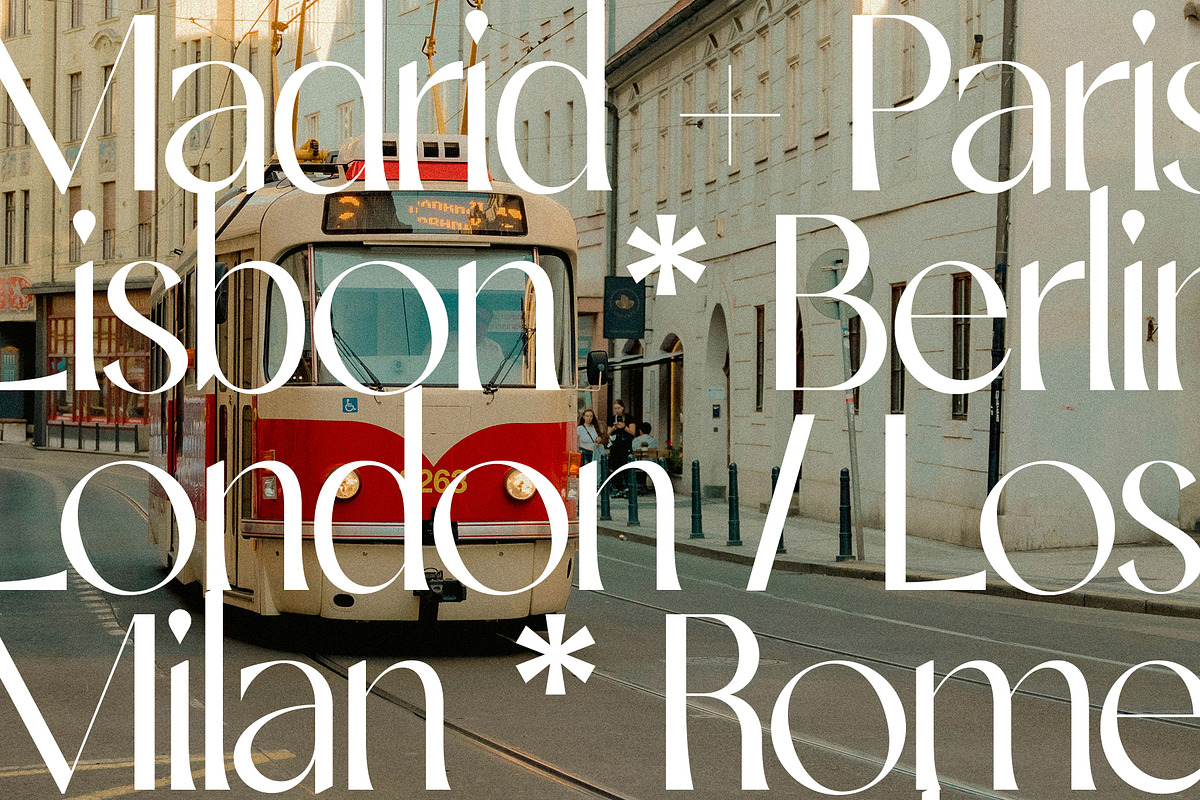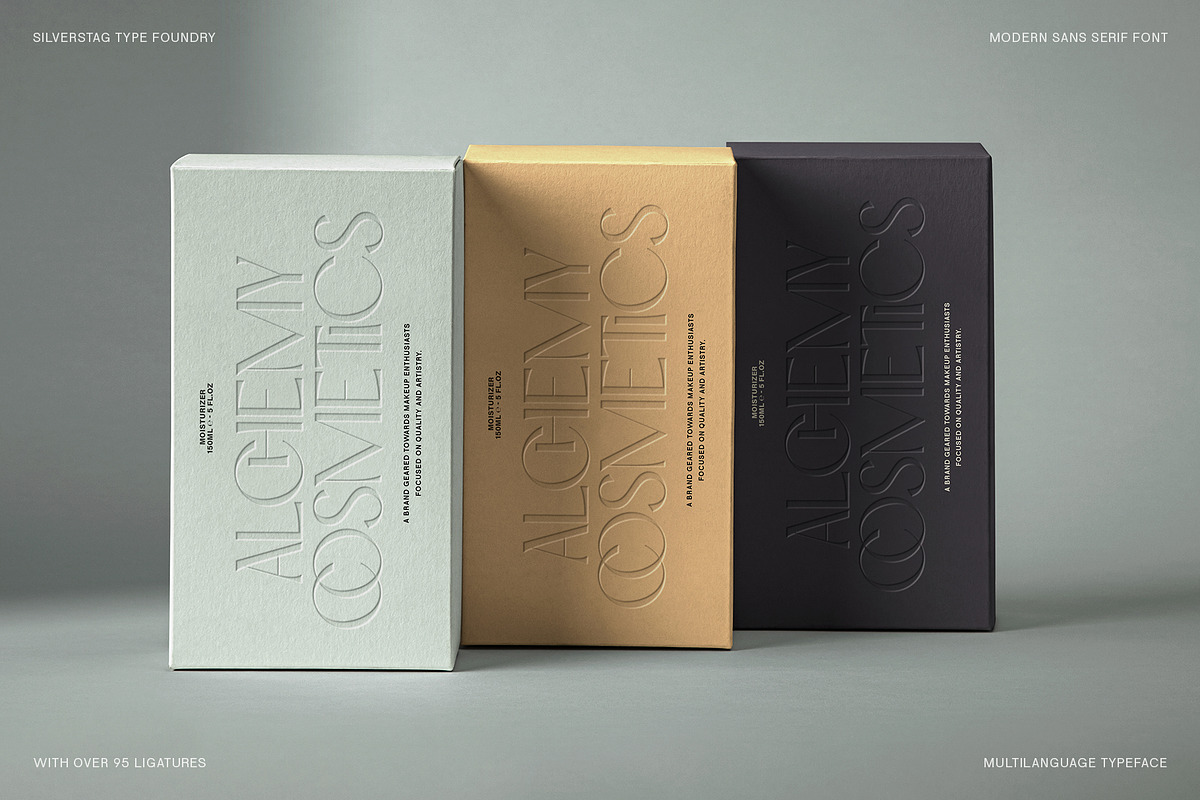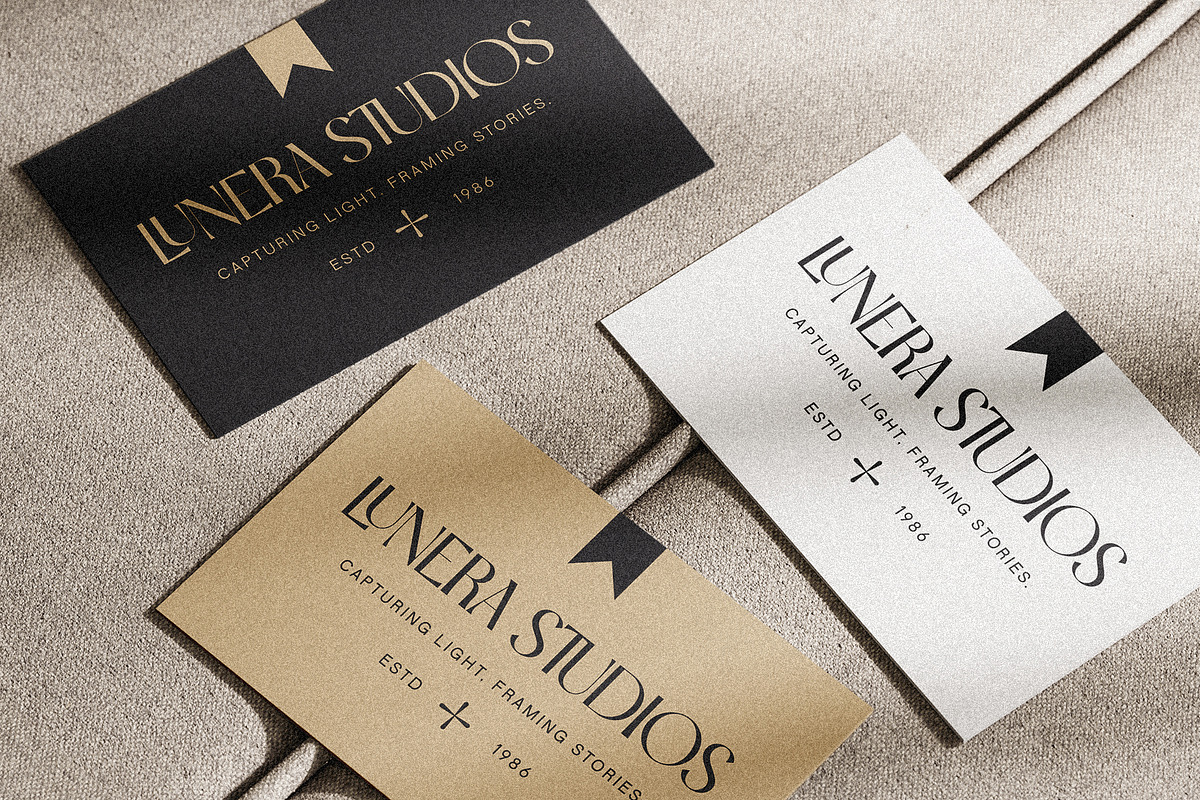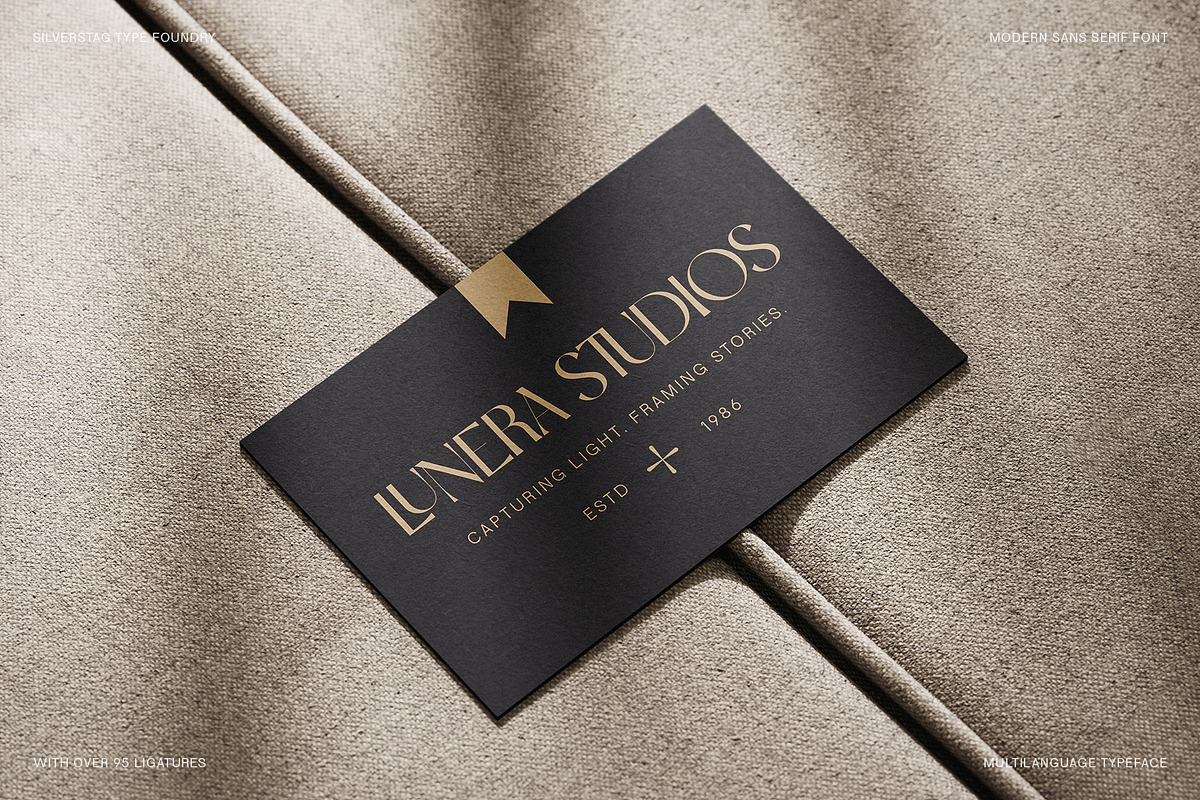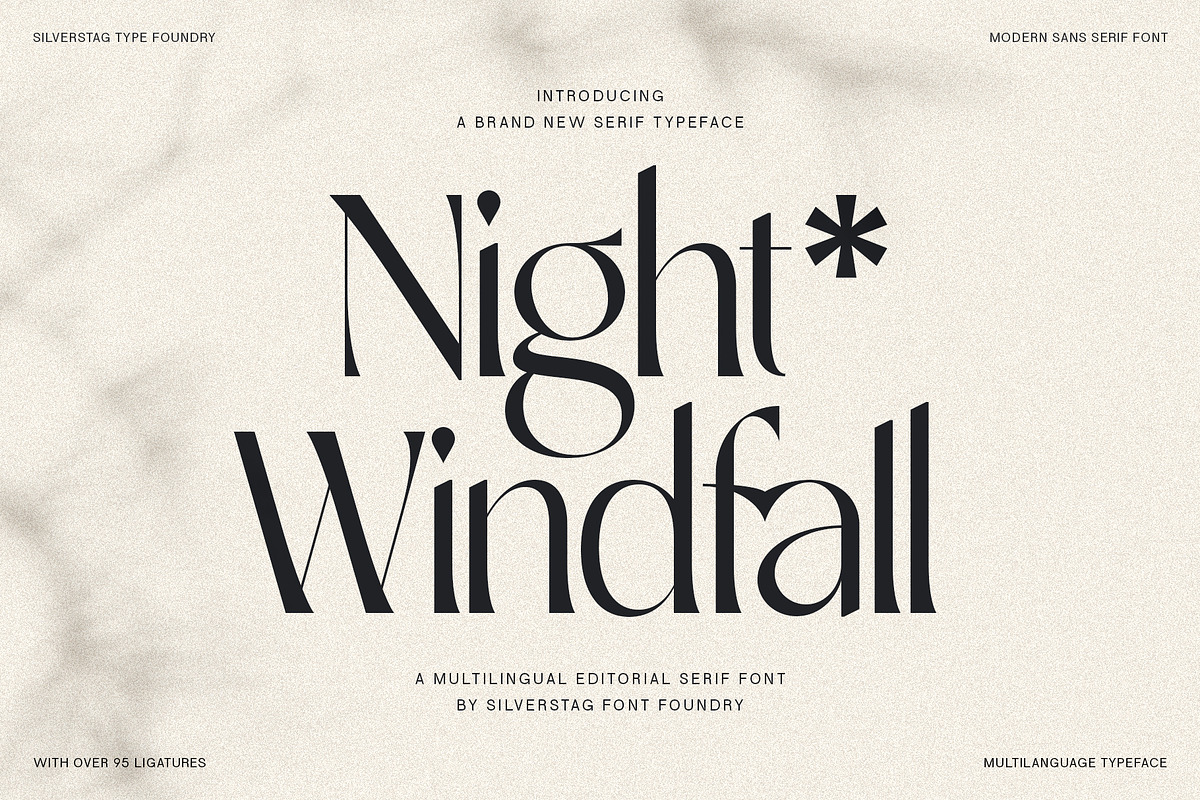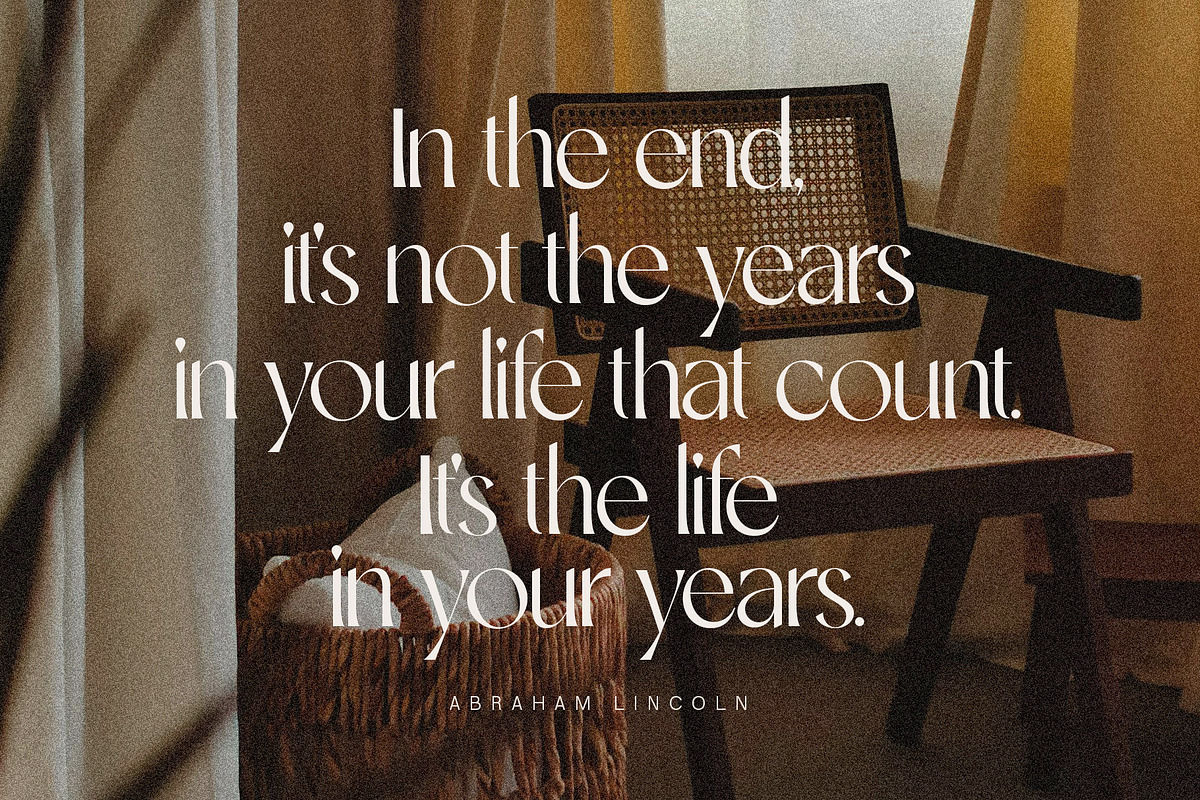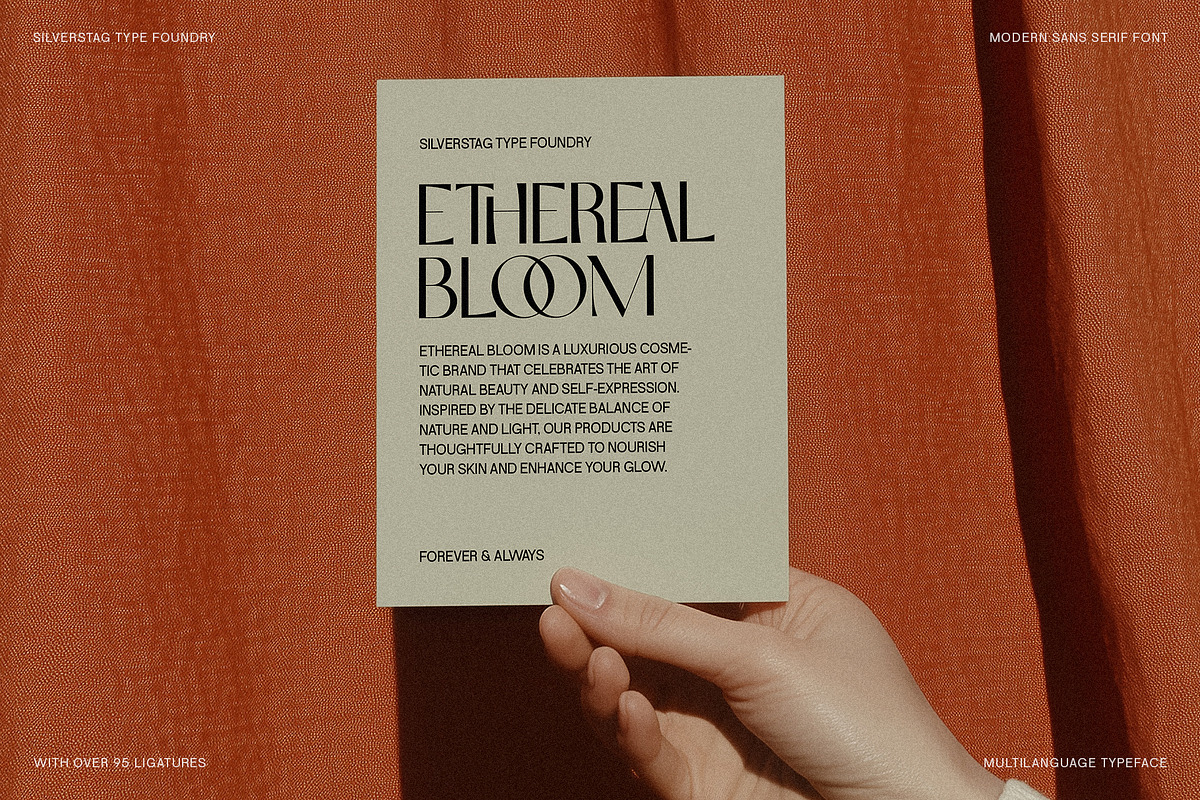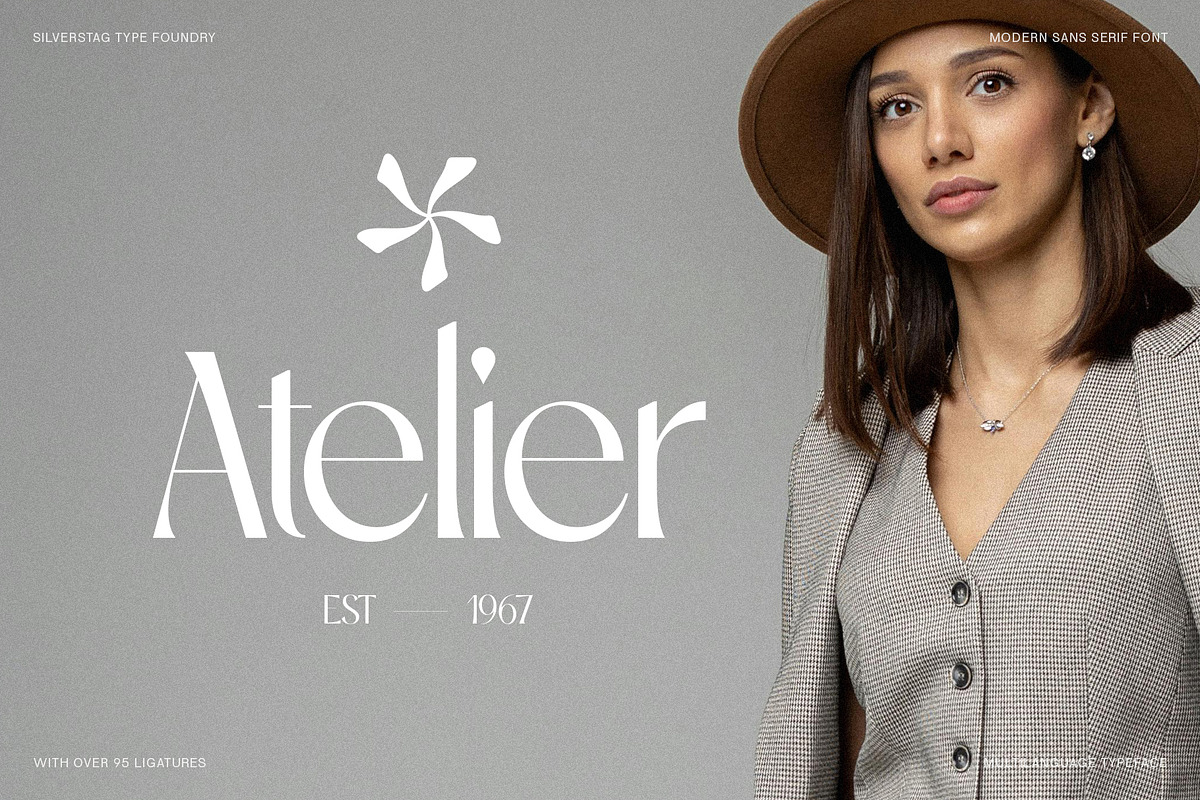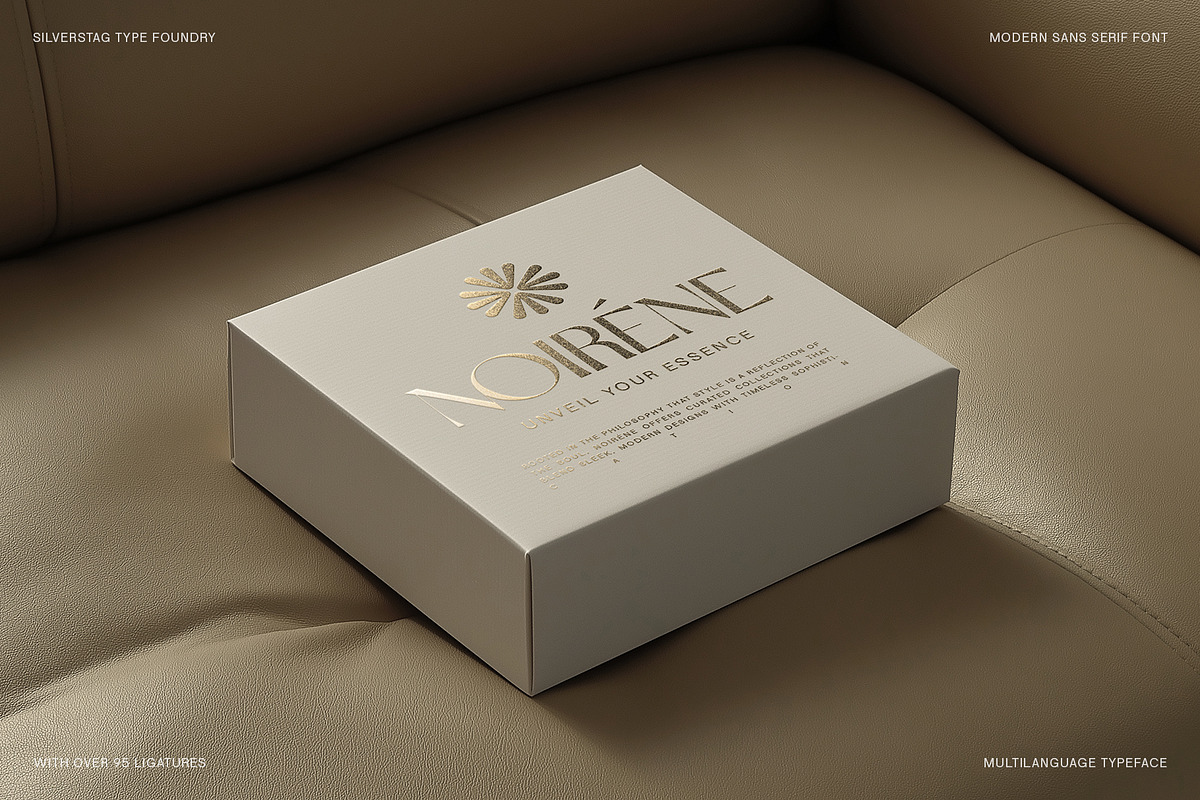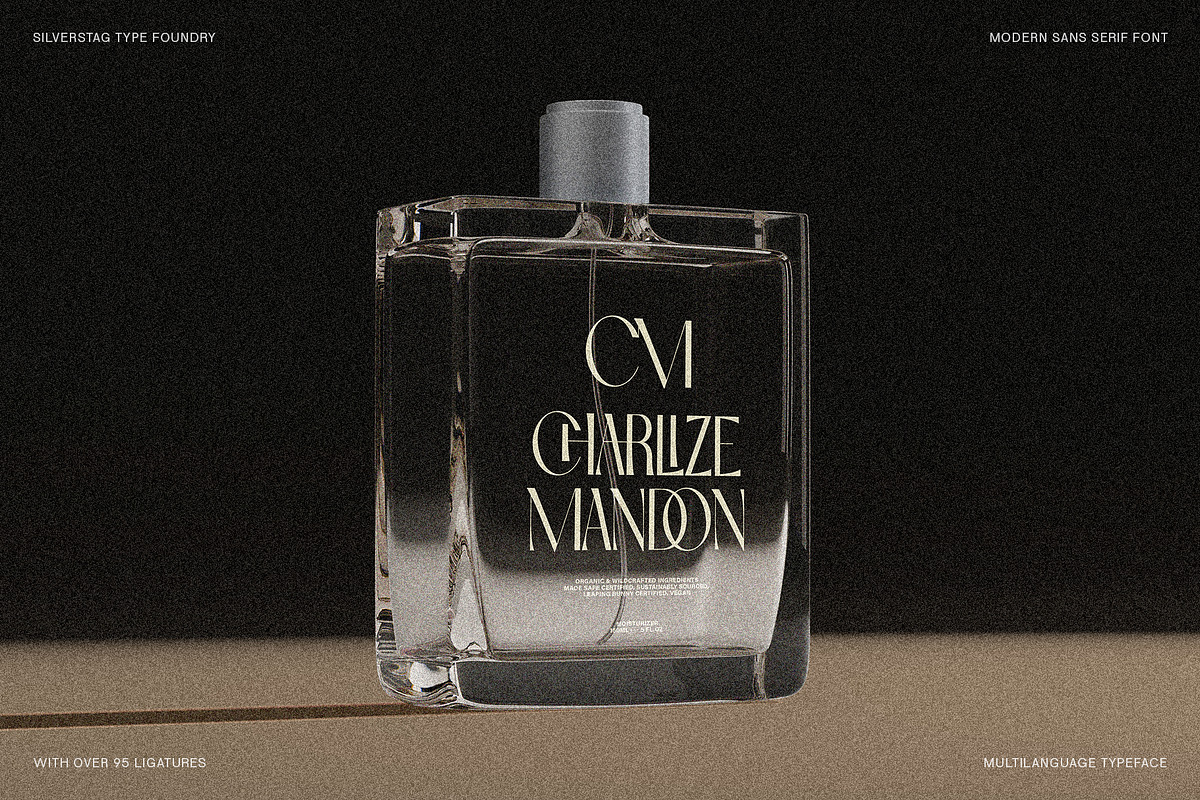
SLTF Night Windfall - Ligature Sans
Introducing SLTF Night Windfall, a stunningly chic sans serif font designed to bring a touch of sophistication to your creative projects. Crafted with meticulous attention to detail, Night Windfall offers over 95 exquisite ligatures and multilingual support for over 90 languages, making it the perfect choice for designers seeking versatility and elegance in one typeface.
- Elegant Ligatures: Over 95 stylish ligatures to create seamless, custom typography with a luxurious flair.
- Multilingual Support: Designed to accommodate over 90 languages, including Latin-based alphabets, ensuring global reach for your designs.
- Versatile Applications: Perfect for editorial layouts, branding projects, high-end packaging, wedding invitations, and more.
- Modern Sans Serif Design: Combines clean lines and contemporary aesthetics with a subtle vintage charm, suitable for both minimalist and ornate designs.
Why Choose SLTF Night Windfall?
- Unmatched Versatility: Whether you’re designing for fashion, cosmetics, or luxury branding, Night Windfall adapts effortlessly to your creative vision.
- Aesthetic Excellence: Its unique ligatures and elegant character shapes create visual harmony, elevating your typography to a new level of sophistication.
- Global Reach: Multilingual support ensures your designs can resonate with audiences worldwide, making it perfect for international campaigns.
- Distinctive Elegance: Add a unique touch to logos, editorial headlines, product packaging, or social media graphics with its modern and chic style.
SLTF Night Windfall is the ideal choice for luxury branding and fashion-related projects, editorial and magazine layouts, wedding stationery and event invitations, elegant product packaging, and social media visuals with a high-end aesthetic. Its versatility and timeless design make it the perfect tool for bringing sophistication to a wide range of creative endeavors.
SLTF Night Windfall is a perfect modern sans serif font for adding elegance to your designs. With its rich ligatures and multilingual support, it’s ideal for luxury branding, editorial design, and high-end packaging. Whether you’re crafting chic typography for weddings, fashion, or international campaigns, this font ensures your work stands out while maintaining global accessibility.
SLTF Night Windfall is more than just a typeface—it’s a statement of style and sophistication. Whether you’re crafting a brand identity or designing for luxury markets, Night Windfall is the essential tool for adding elegance and creativity to your work.